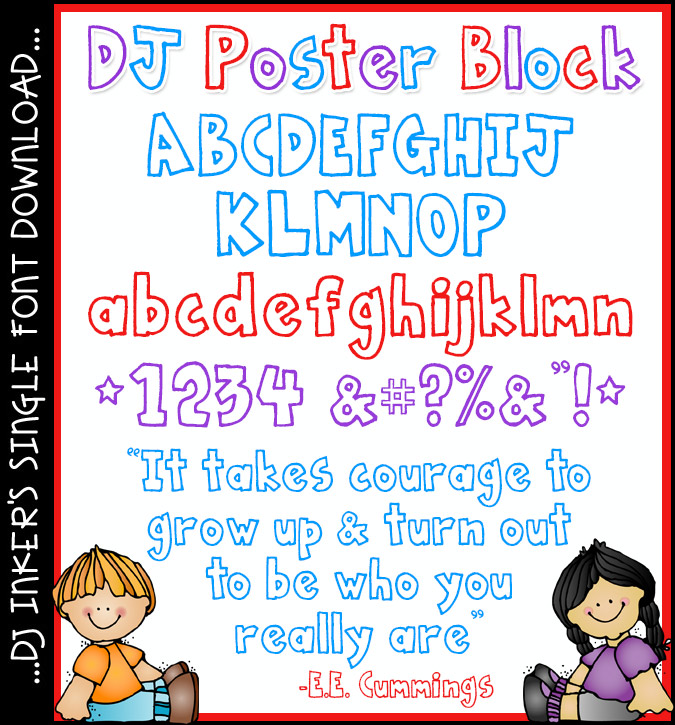
DJ Poster Block Font Download
You can type-up headlines, fliers & notes that are bold & full
of personality with our fun font, DJ Poster Block! Classic block letters
with a little DJ flair are the perfect way to give that extra grin to your
projects. This font is fabulous in any color & size... and perfect